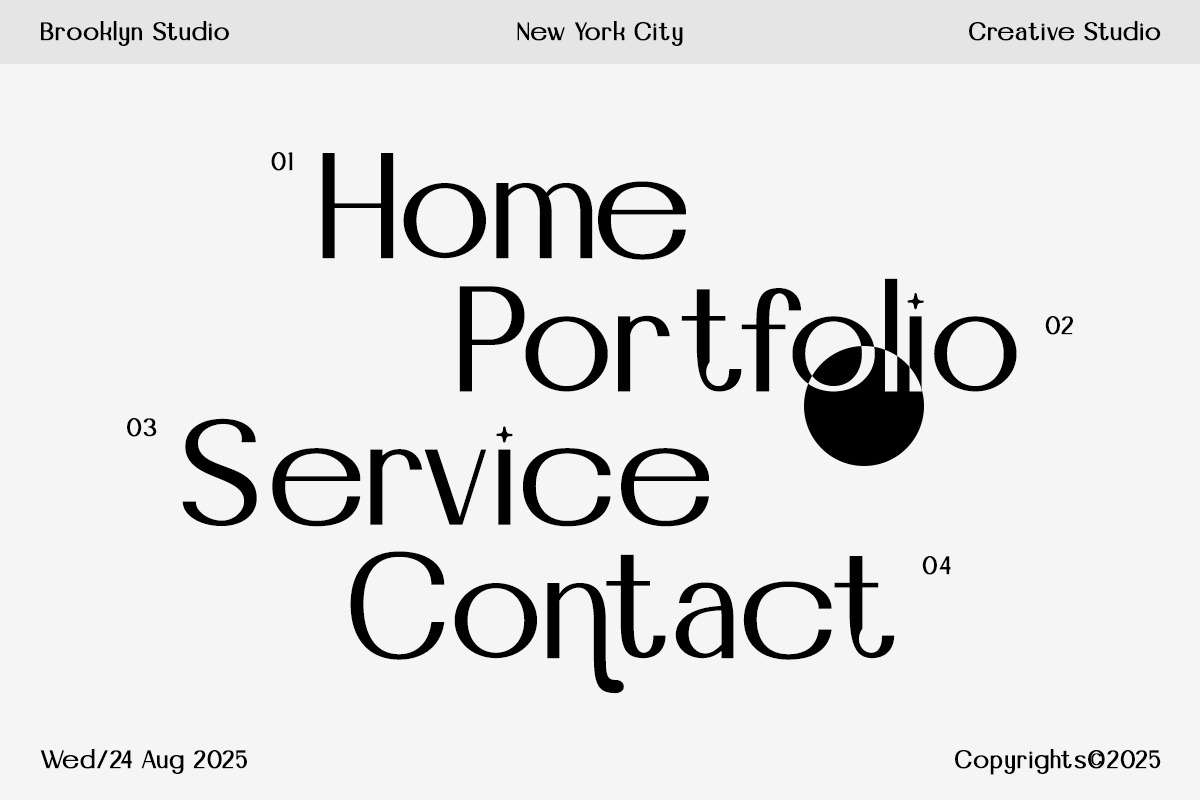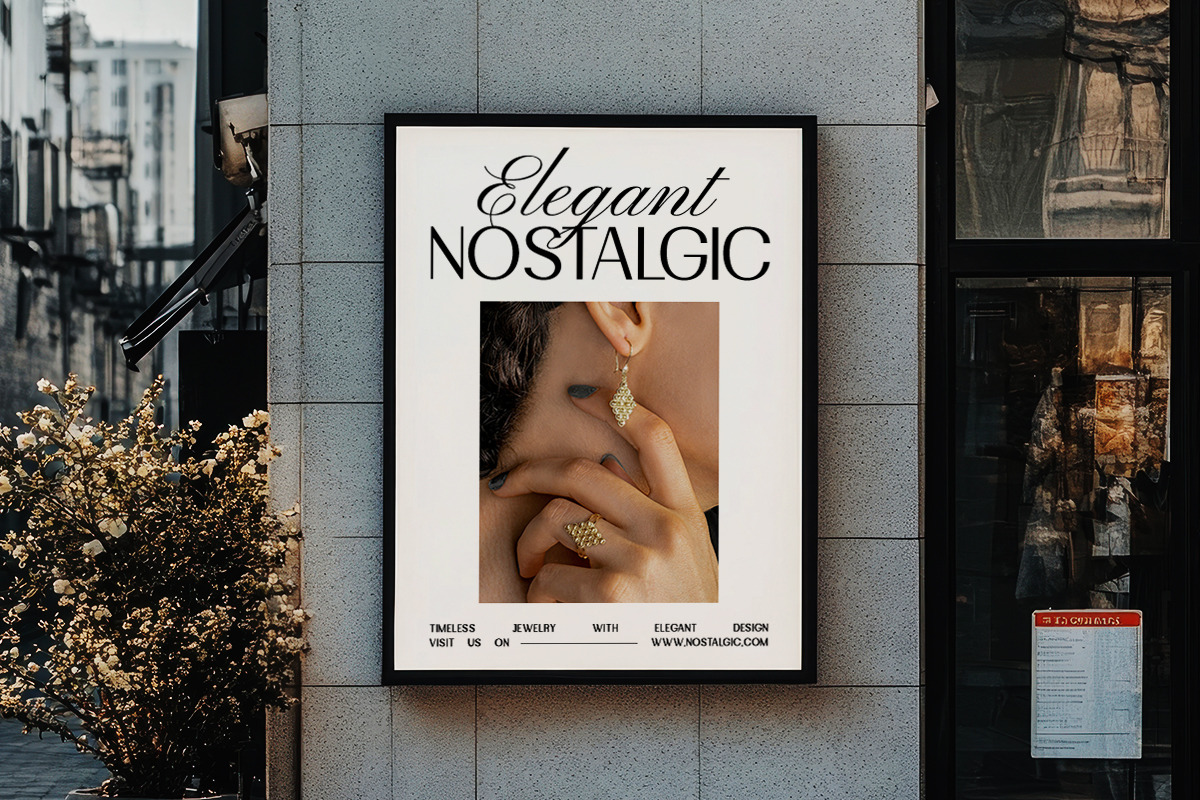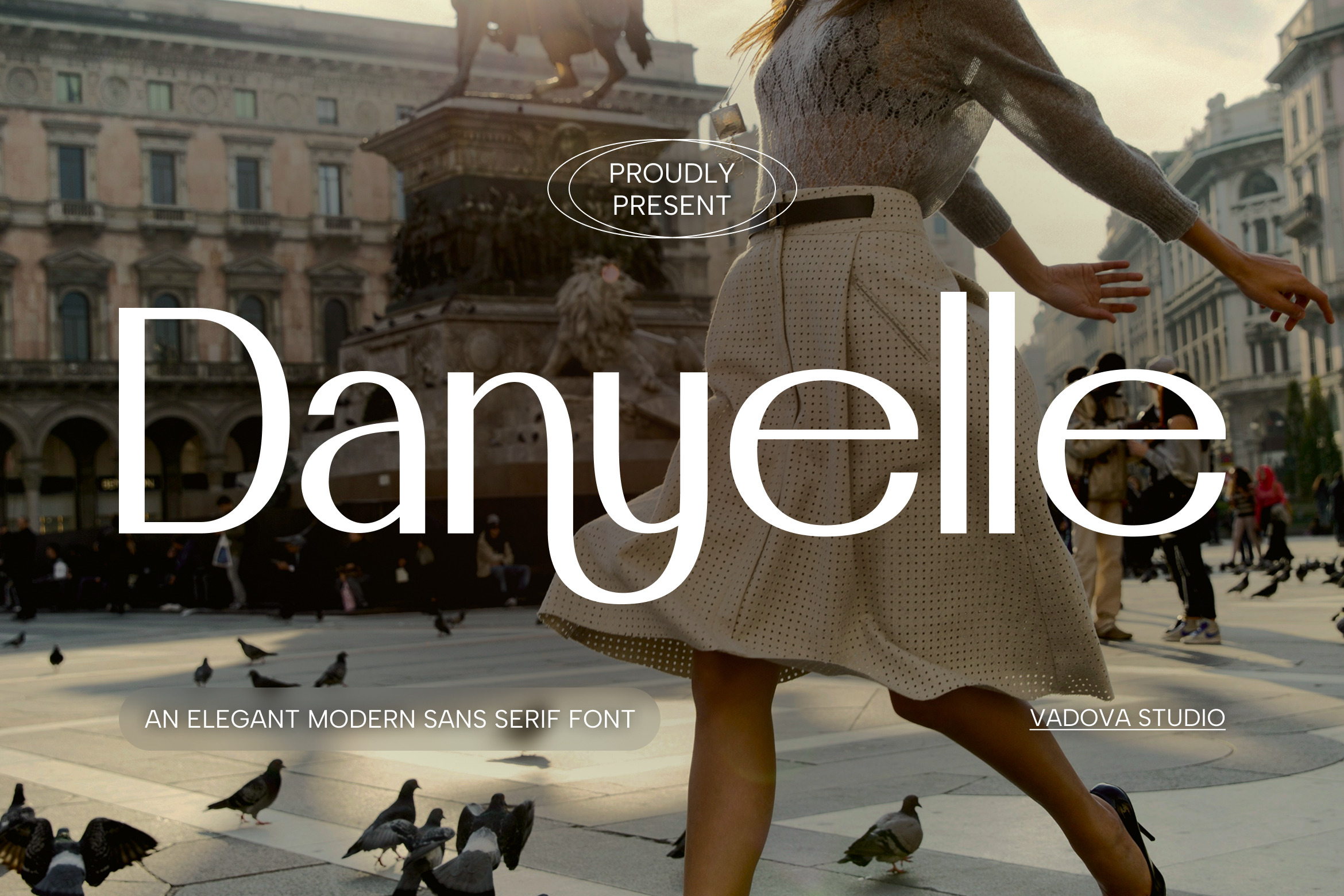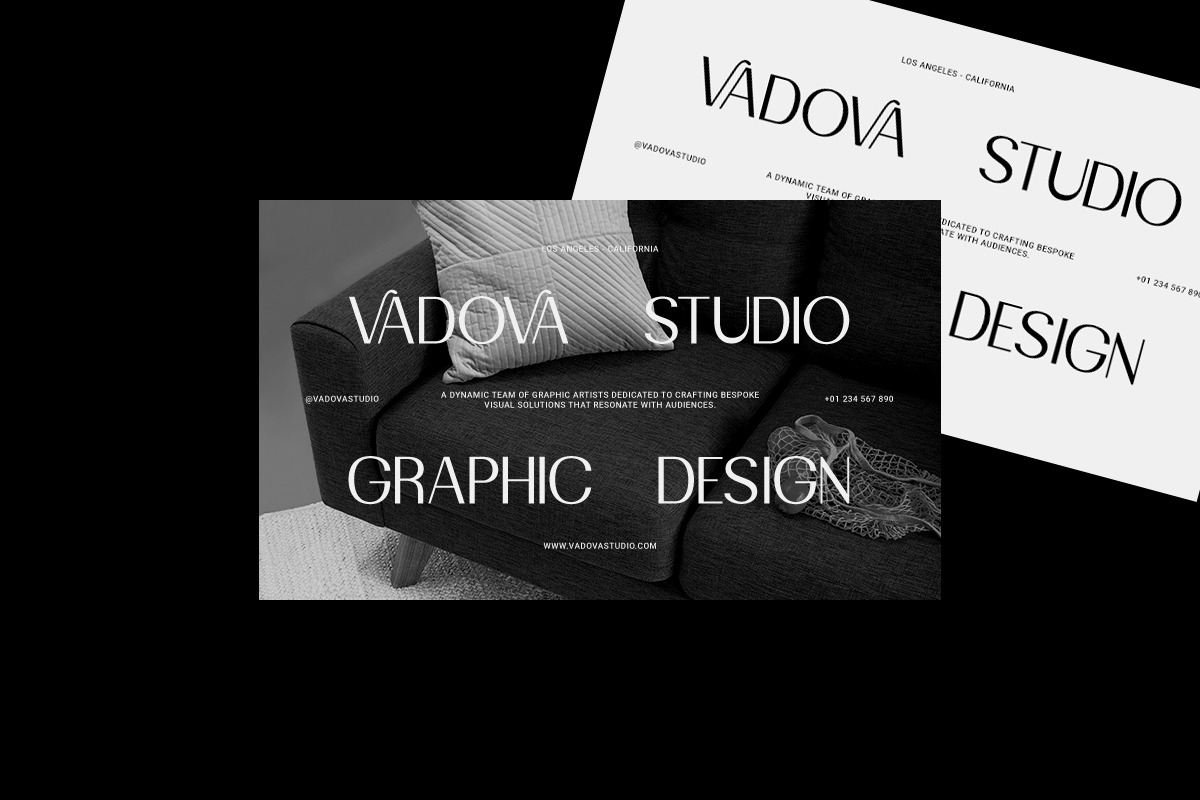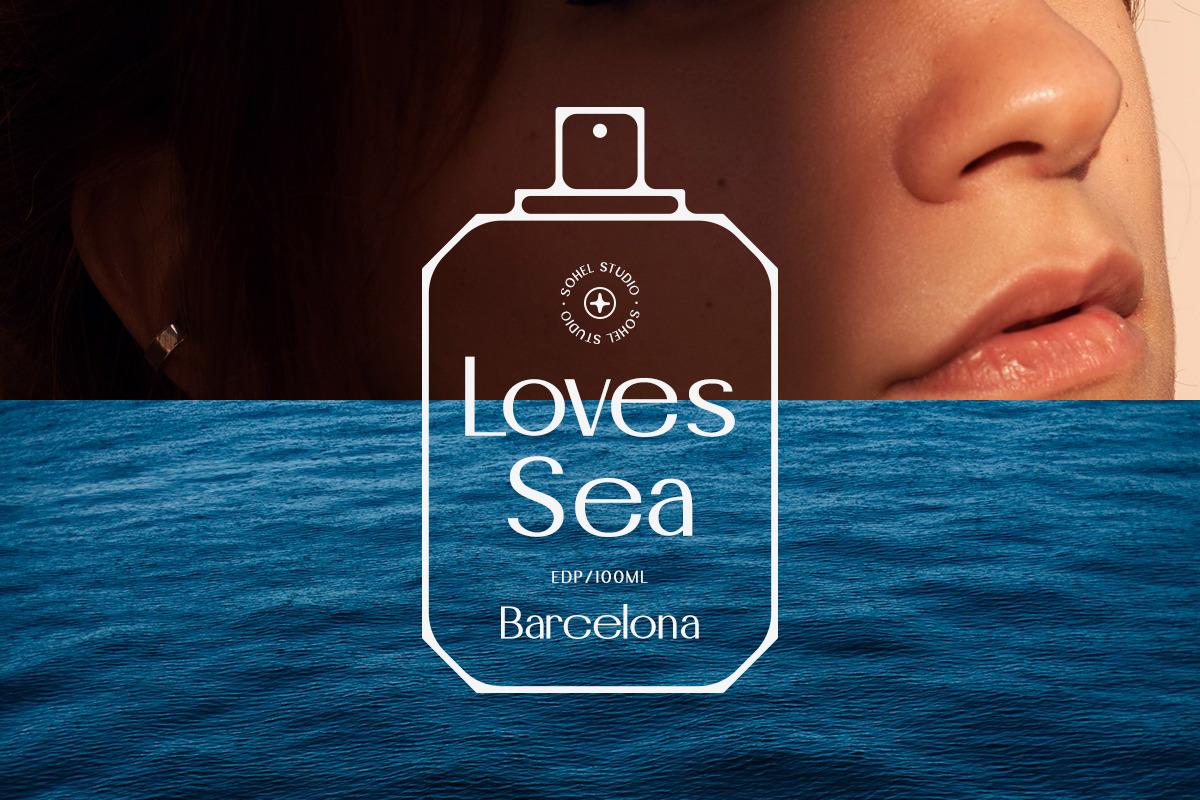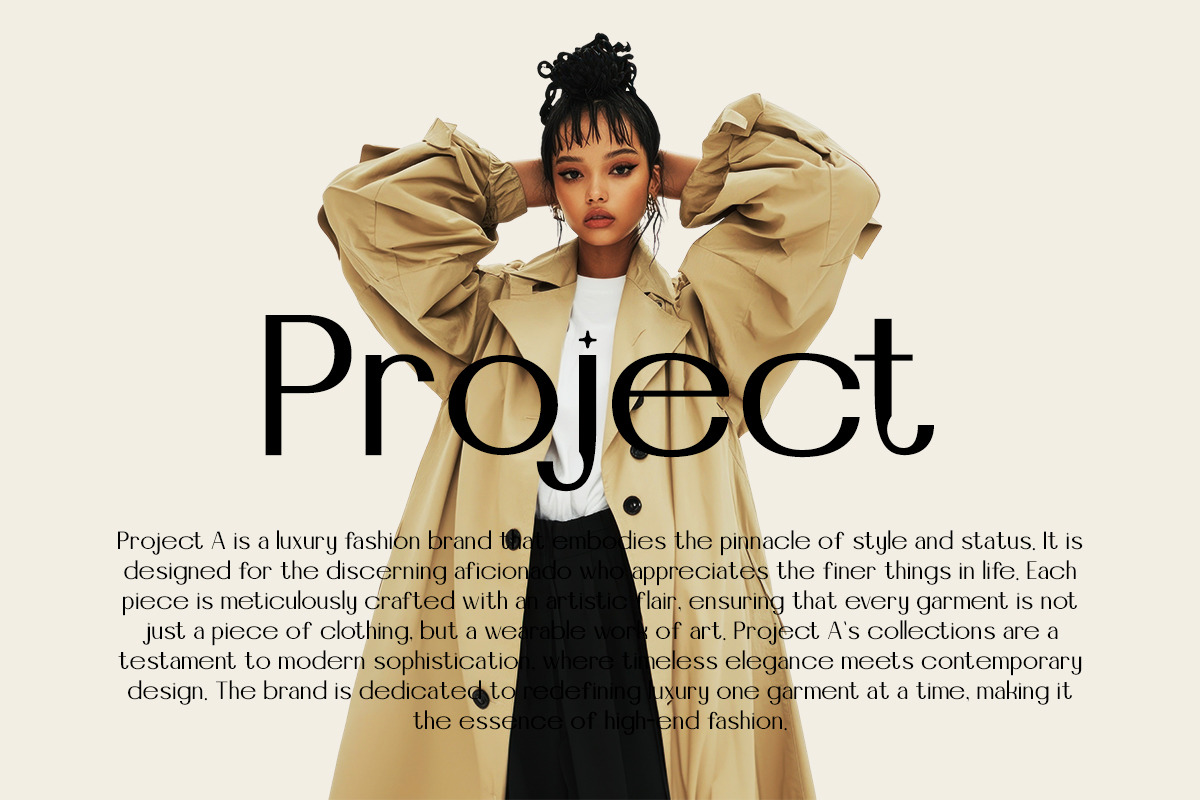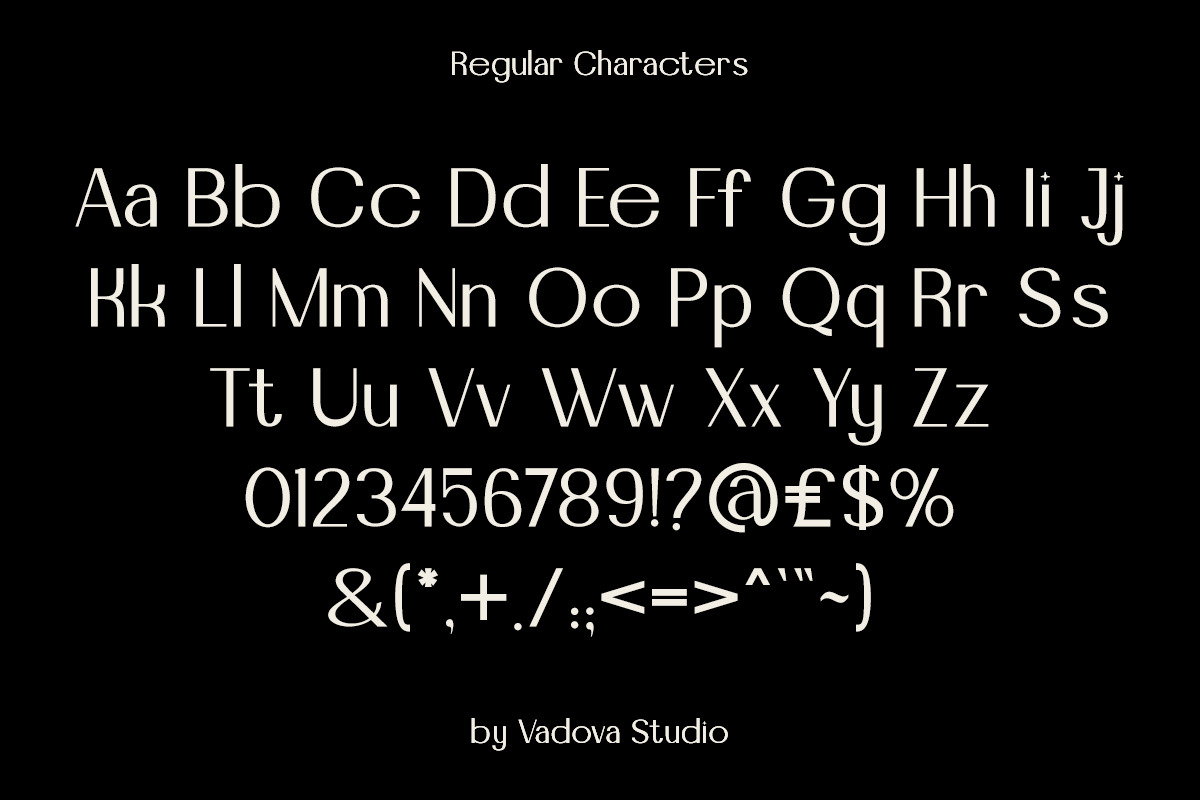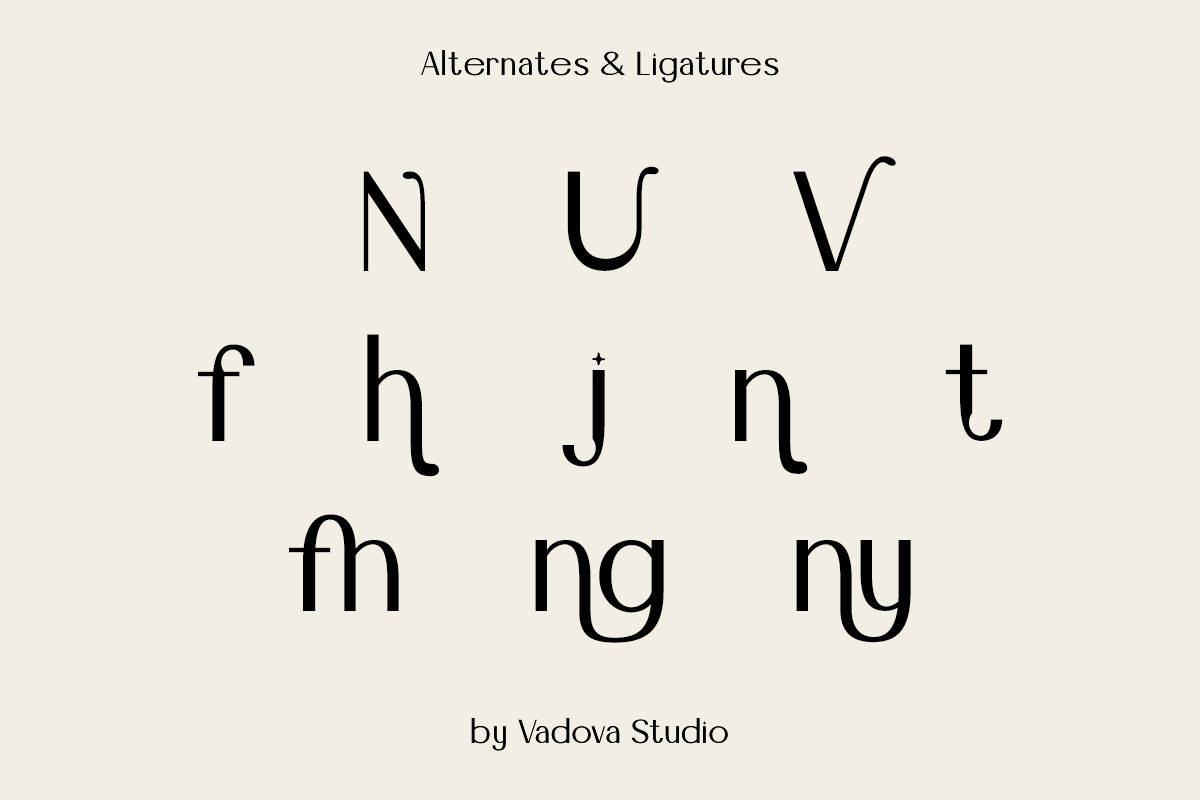
Danyelle Elegant Modern Sans Font
Danyelle is an elegant modern sans serif font designed with a clean, refined, and contemporary aesthetic. It features smooth curves, balanced proportions, and a minimalist structure that delivers a polished visual tone across various design applications. The letterforms are crafted to feel light yet confident, making the font suitable for both large headlines and smaller body text without losing clarity.
Danyelle is designed to support modern visual communication that values clarity, elegance, and balance. It fits naturally into branding systems, editorial layouts, fashion-related visuals, and digital interfaces where a refined yet approachable typographic presence is required. Its clean structure allows it to adapt smoothly across creative, corporate, and lifestyle-driven projects without overpowering the overall design.
- Elegant modern sans serif design with clean and balanced proportions
- Subtle refined details that add a soft and sophisticated character
- Smooth curves and gently rounded terminals for clear legibility
- Consistent stroke weight with stable vertical stress
- Well-balanced spacing for both display typography and body text use
- Brand identity systems seeking a calm, elegant, and professional tone
- UI/UX design templates for modern websites, apps, and digital products
- Editorial magazines and minimalist book layouts
- Product packaging and label design with clean and refined aesthetics
- Social media templates and digital marketing kits with subtle elegance
Subtle, elegant, and modern Danyelle lets your message speak clearly